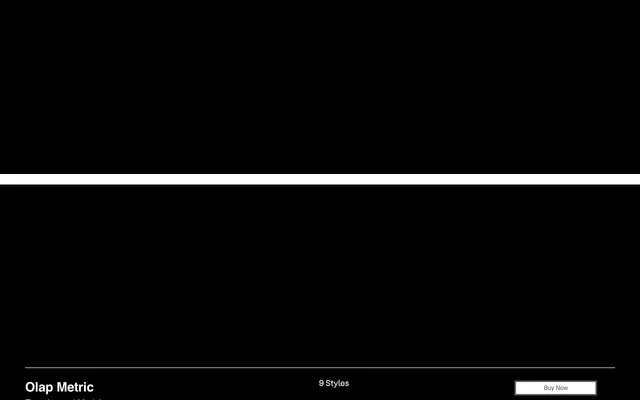
Olap Metric
A modular geometric display typeface built around angular forms and compressed geometry for posters, motion graphics and experimental branding.
Rigid structural construction and unconventional proportions give this family a mechanical, futuristic character suited to large-scale and visually aggressive layouts. The system-driven approach treats alignment, spacing and repetition as aesthetic elements in themselves, producing a consistent graphic rhythm across compositions. Available in 9 styles with coverage of 180 Latin languages, it targets art direction and visual identity work where type is intended to dominate rather than recede.
Olap Metric is a modular, geometric display typeface with angular, compressed forms and a mechanical visual character, placing it firmly in the geometric display category rather than a conventional sans-serif classification.